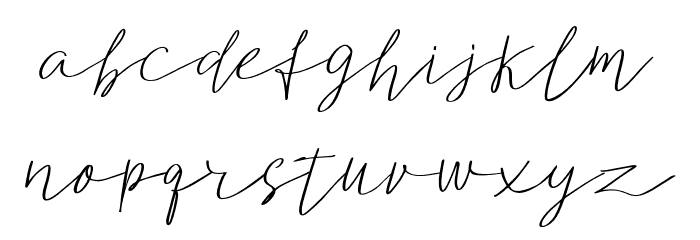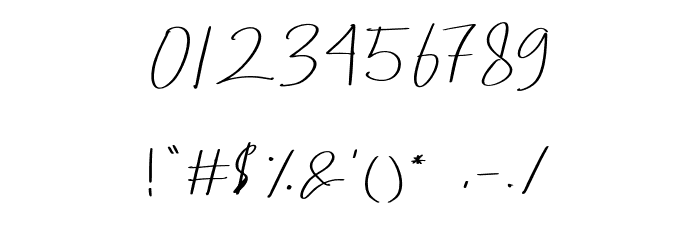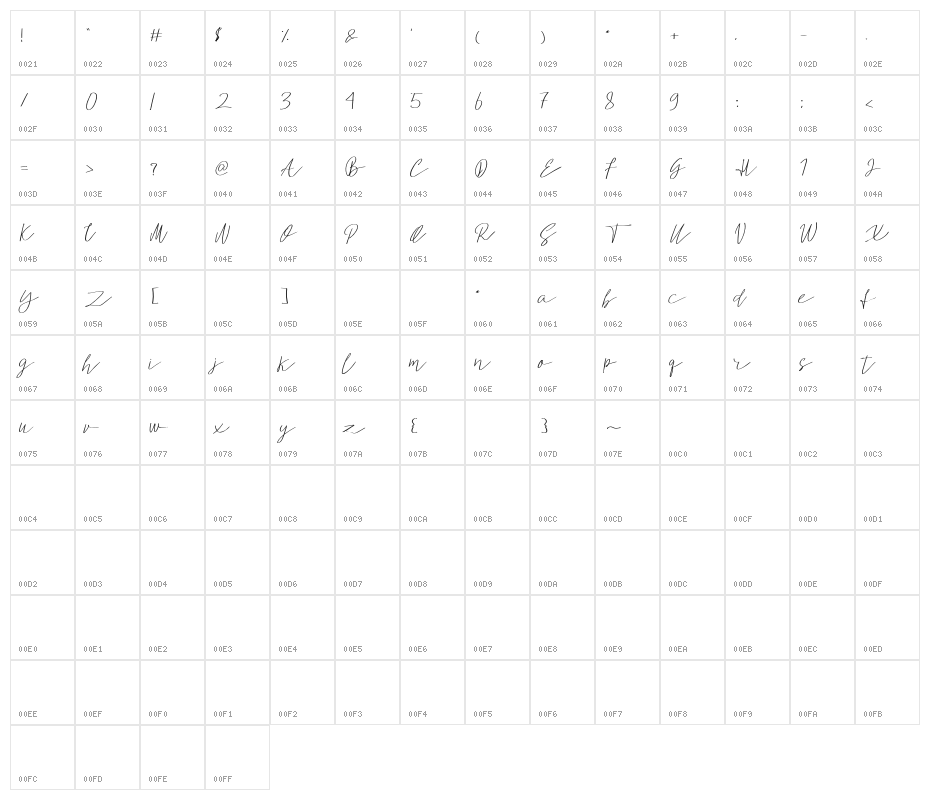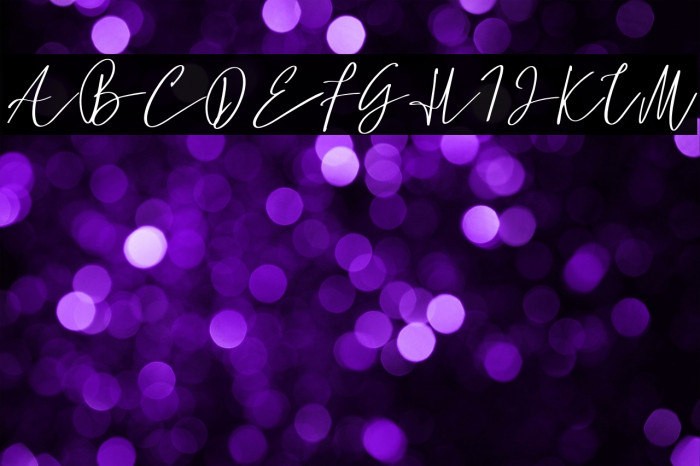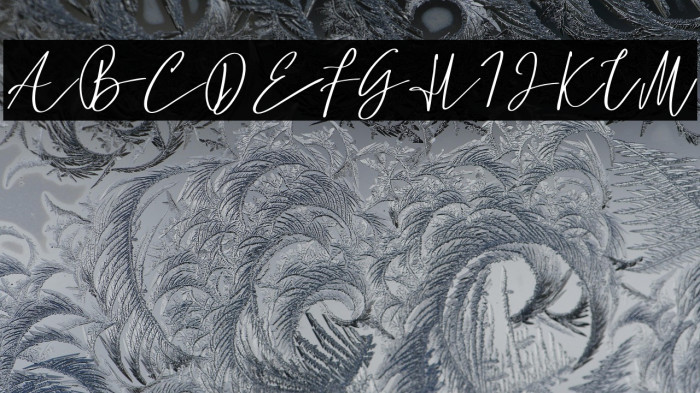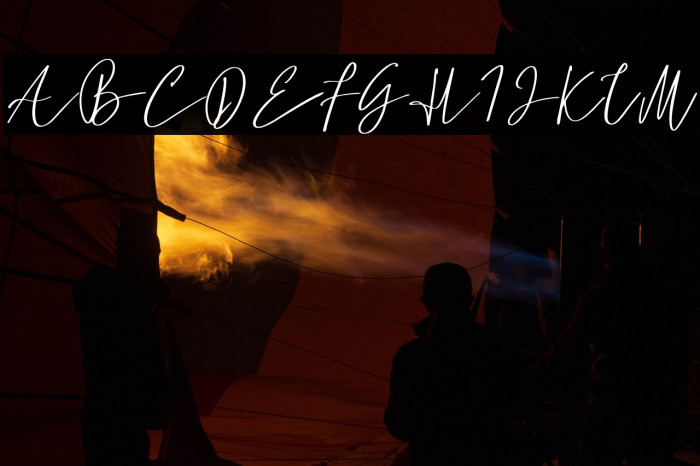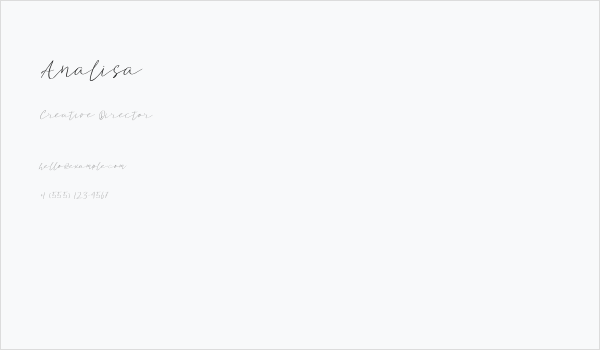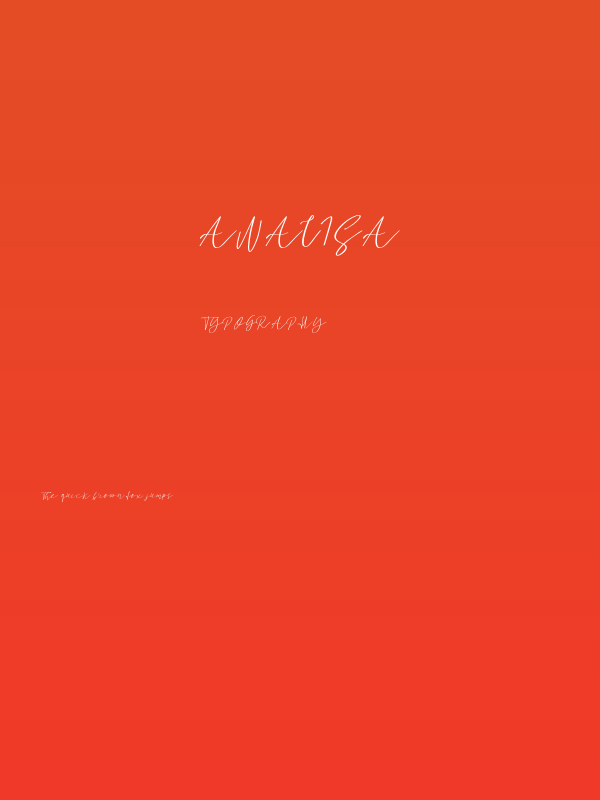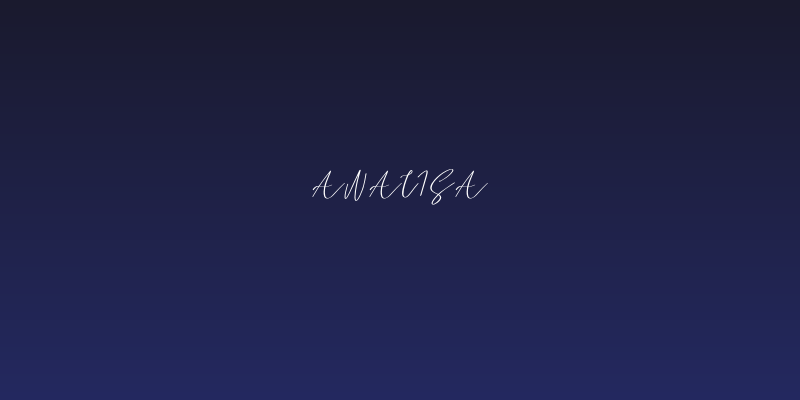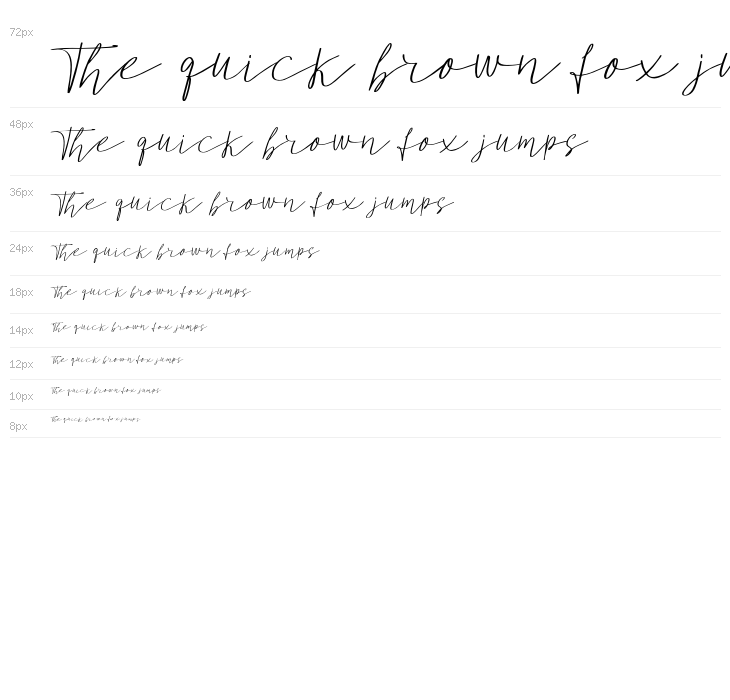
Analisa Font
This font features a flowing, cursive style that mimics natural handwriting. The letters are connected with smooth, elegant strokes, giving it a personal and artistic touch. The uppercase letters are slightly more elaborate, while the lowercase letters maintain a consistent flow. The numerals are clear and maintain the cursive aesthetic. Special characters are integrated seamlessly, maintaining the overall style. This font is ideal for projects that require a personal or creative flair, such as invitations, greeting cards, or artistic branding.
A flowing, cursive font with a natural handwriting style.
- Font: Analisa
- Proposed Projects: Ideal for invitations, greeting cards, personal branding, and artistic projects.
- Category: Script
- Use Case: Logos, Headlines, Artistic projects